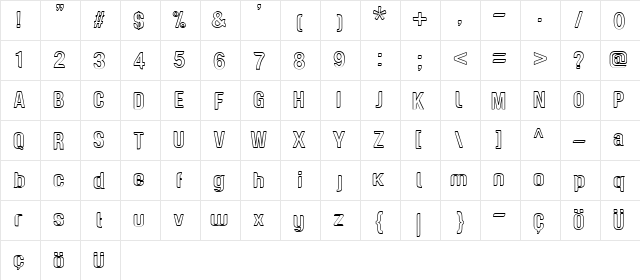
Genghis Khan Med Outline Regular
Design Context for Genghis Khan Med Outline Typeface
Genghis Khan Med Outline is built around its visual character rather than neutral utility — its distinctive forms are designed to make an impression at display sizes.
Font Pairing: Pair with a clean neutral sans-serif for body copy to let Genghis Khan Med Outline's character lead without overwhelming the composition.
Pro Tip: Use Genghis Khan Med Outline exclusively at display sizes — it was designed to be seen, not read at length. Let a neutral companion handle body copy.